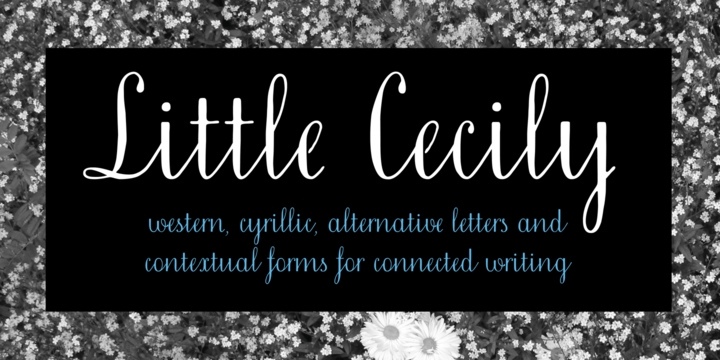
Little Cecily Font
Little Cecily Font is perfect for children's book publishing, nursery décor branding, baby product packaging, preschool educational materials, family photography studios, and whimsical toy company communications. This delightful typeface excels in kindergarten classroom materials, children's app interfaces, sweet bakery branding, and any application where innocent charm and childlike wonder create joyful connections with families and young hearts.
What makes Little Cecily Font so exciting is its remarkable ability to capture the pure innocence and boundless imagination of childhood through playfully crafted letterforms that seem drawn by a talented young artist. The font features gentle curves, childlike proportions, and sweet character shapes that radiate warmth and wonder. Its endearing personality makes it perfect for brands that celebrate the magic of childhood and family connections.
Little Cecily Font comes in a sweet family including Light, Regular, Medium, Bold, and Playful weights. Each style features complete uppercase and lowercase character sets, whimsical symbols, childlike numerals, and adorable punctuation marks. The font family also includes crayon alternates, storybook ligatures, and innocent variations that allow designers to create truly heartwarming communications with childhood appeal and professional quality.
The font's childlike character makes it particularly effective for children's educators, family photographers, toy companies, and child-focused service providers. Its gentle readability ensures that Little Cecily Font communicates clearly while maintaining its distinctive innocent personality. The font's ability to evoke joy and childhood wonder makes it an invaluable crayon for any project seeking to celebrate the magic of childhood and connect with families through the universal appeal of pure innocence, imaginative play, and the precious beauty of young hearts.